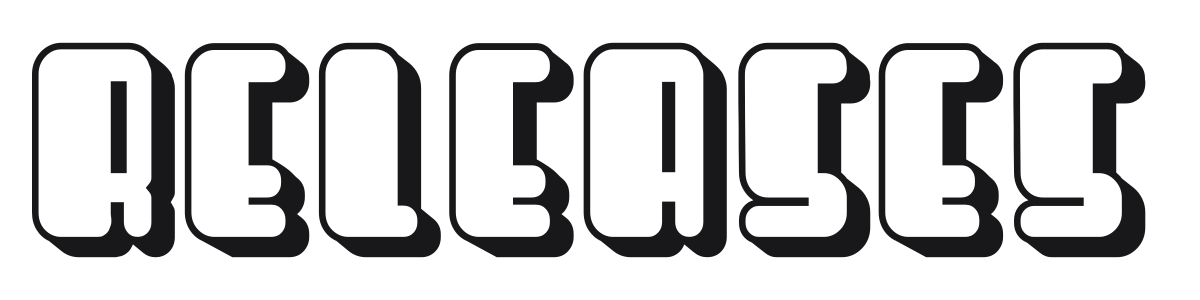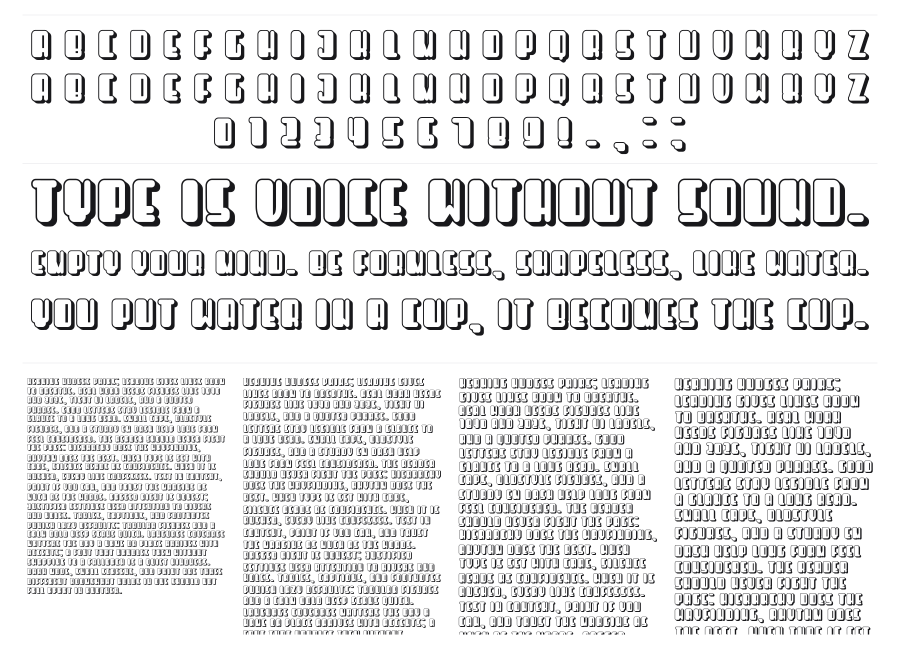
Releases
Releases is a chunky retro display font built on extra-bold rounded forms with a built-in outline and offset drop shadow. The thick, evenly weighted strokes and fully rounded corners pull straight from 1970s pop and arcade typography. It works best big, where the layered shadow effect can breathe.